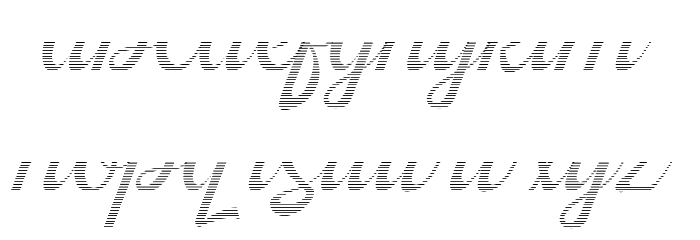
Kingfisher Half Engraved Font
This font features a unique engraved style with a modern twist, characterized by its diagonal line pattern that creates a half-tone effect. The uppercase letters are bold and structured, while the lowercase letters exhibit a more fluid, cursive style, adding a touch of elegance. The numbers and special characters maintain the same engraved aesthetic, ensuring consistency across all characters. This font's distinct appearance makes it suitable for creative and artistic projects where a standout typeface is desired.
A modern engraved font with a diagonal line pattern and cursive lowercase letters.
- Font: Kingfisher Half Engraved
- Proposed Projects: Ideal for branding, packaging, invitations, and artistic posters where a unique and stylish font is needed.
- Use Case: Logos, Headlines, Artistic projects